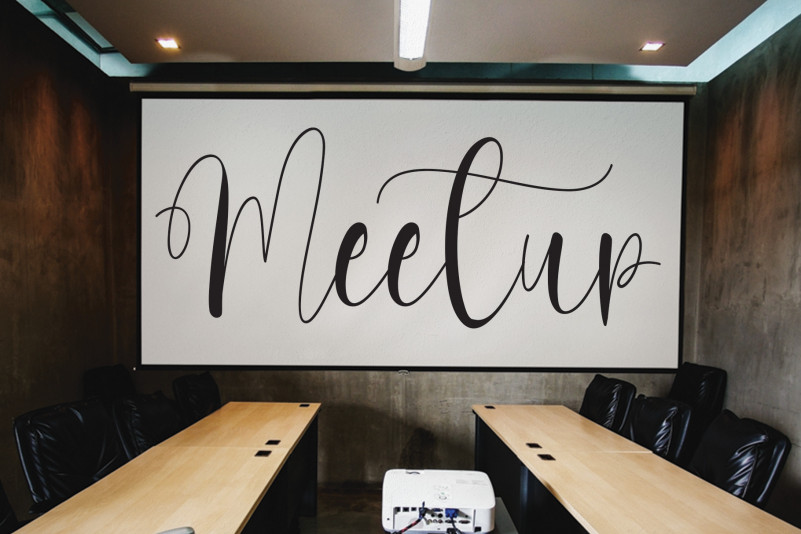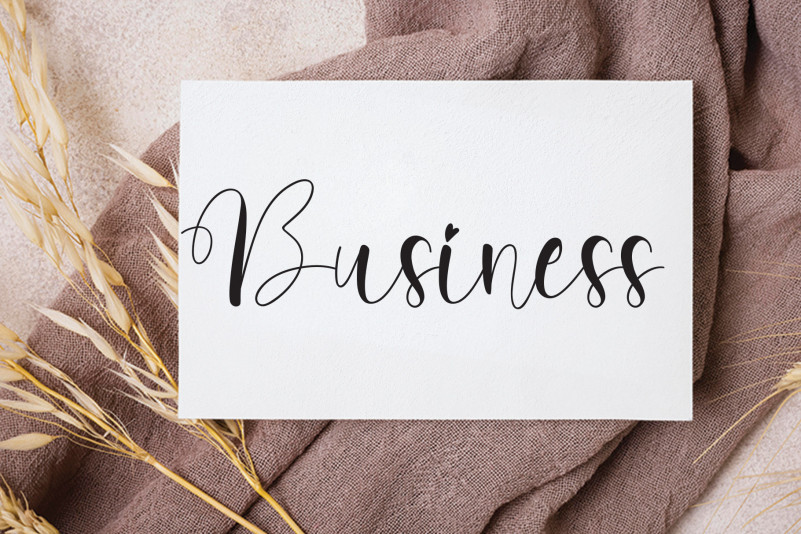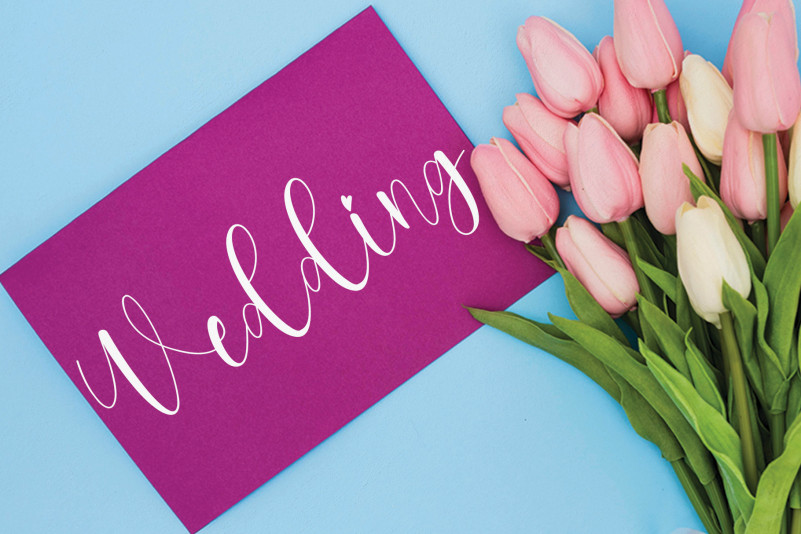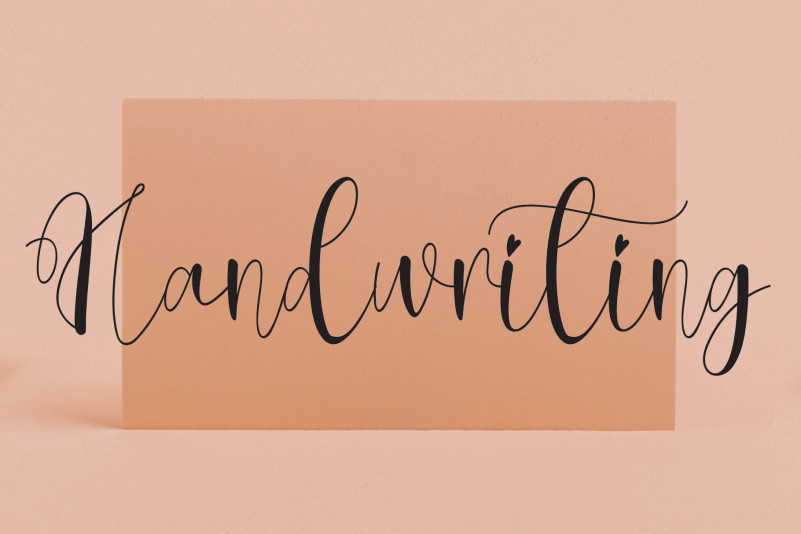
Farmwork Font
Farmwork Script Font
This is a special and creative handwritten font with elegant characters that impress with their style! Use this gorgeous typeface to add a lovely accent to labels, product designs, watermarks, photography, and so much more!
the latest style letters are perfect for wall displays, wedding invitations, social media post logos, advertisements, product packaging, product designs, labels, photography, watermarks, invitations, stationery, and any project that requires taste handwriting.